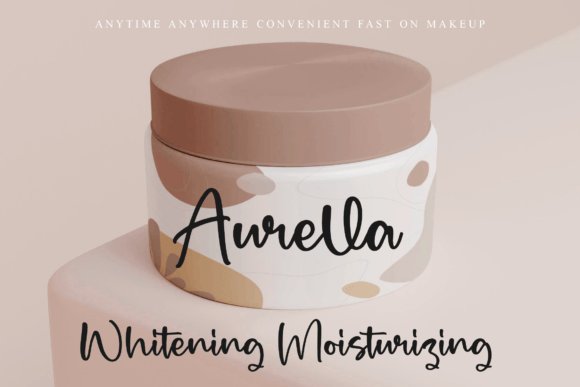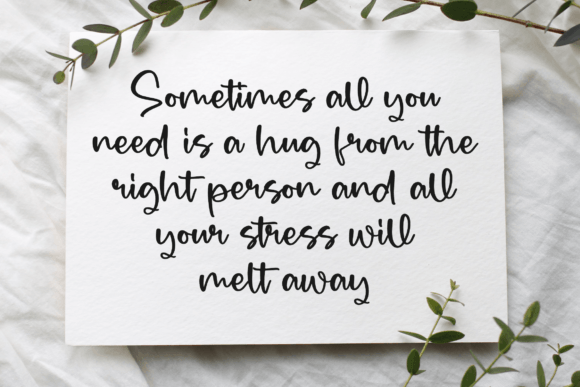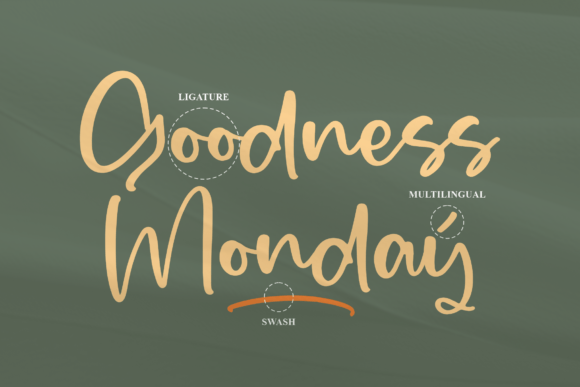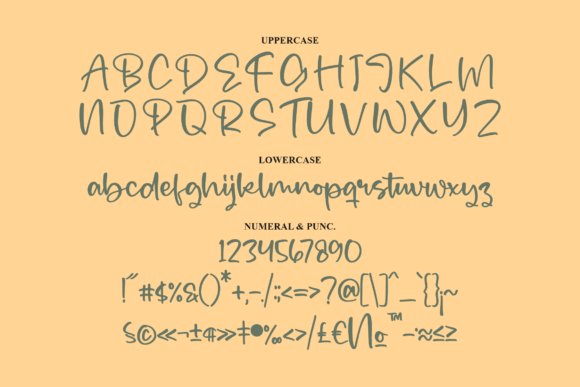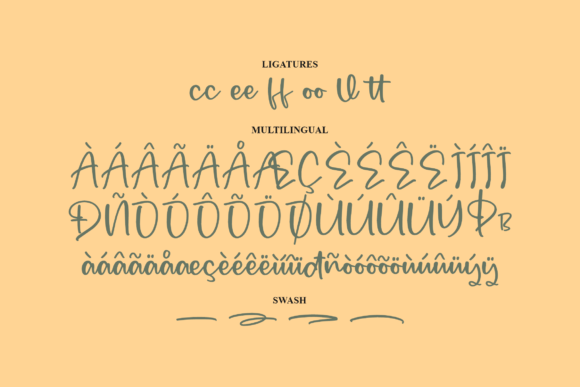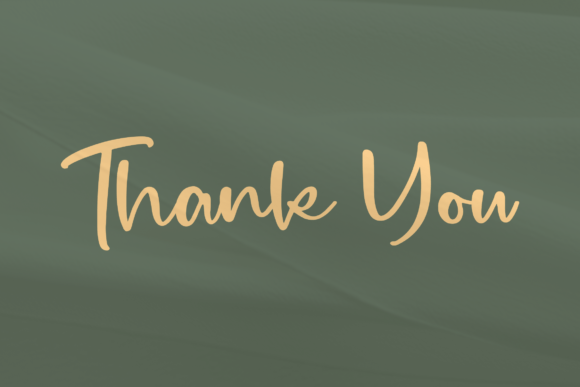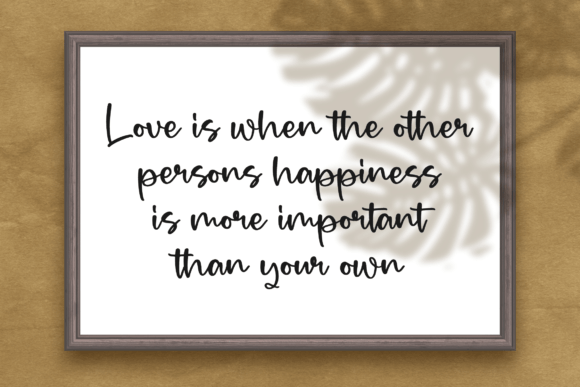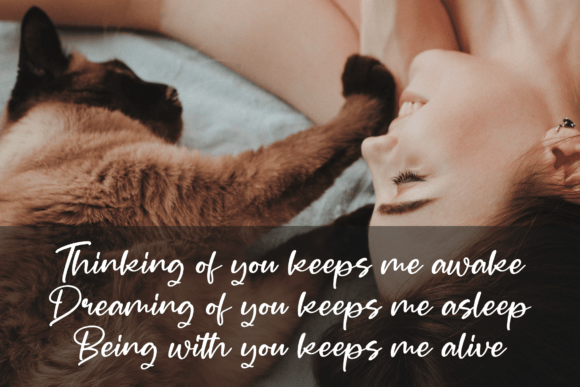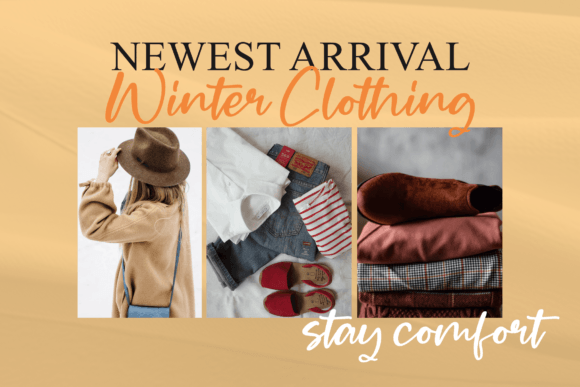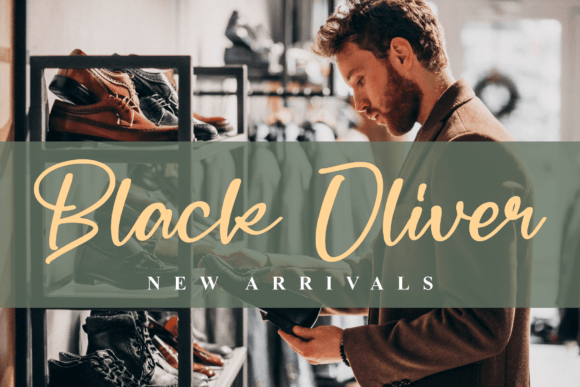
Mergolla Beauty Font
About Mergolla Beauty Font
“Mergolla Beauty” is a beautiful handwritten font designed to enhance a wide range of projects. Whether you’re working on logos, branding projects, homeware designs, product packaging, quotes, posters, T-shirts, book covers, name cards, invitations, or other creative endeavors, “Mergolla Beauty” adds a touch of elegance and beauty to your designs.
The script style of “Mergolla Beauty” lends a graceful and personal feel to your projects, making it a versatile choice for various applications. Its suitability for a diverse range of design projects, including labels, photography, watermarks, and special events, makes it a go-to font for adding a sophisticated script taste.
Utilize the charm of “Mergolla Beauty” to bring an elegant and handwritten touch to your creative work. Its graceful strokes and flowing characters make it ideal for projects that require a touch of beauty and refinement. Incorporate this font into your designs to achieve a lovely and sophisticated aesthetic.